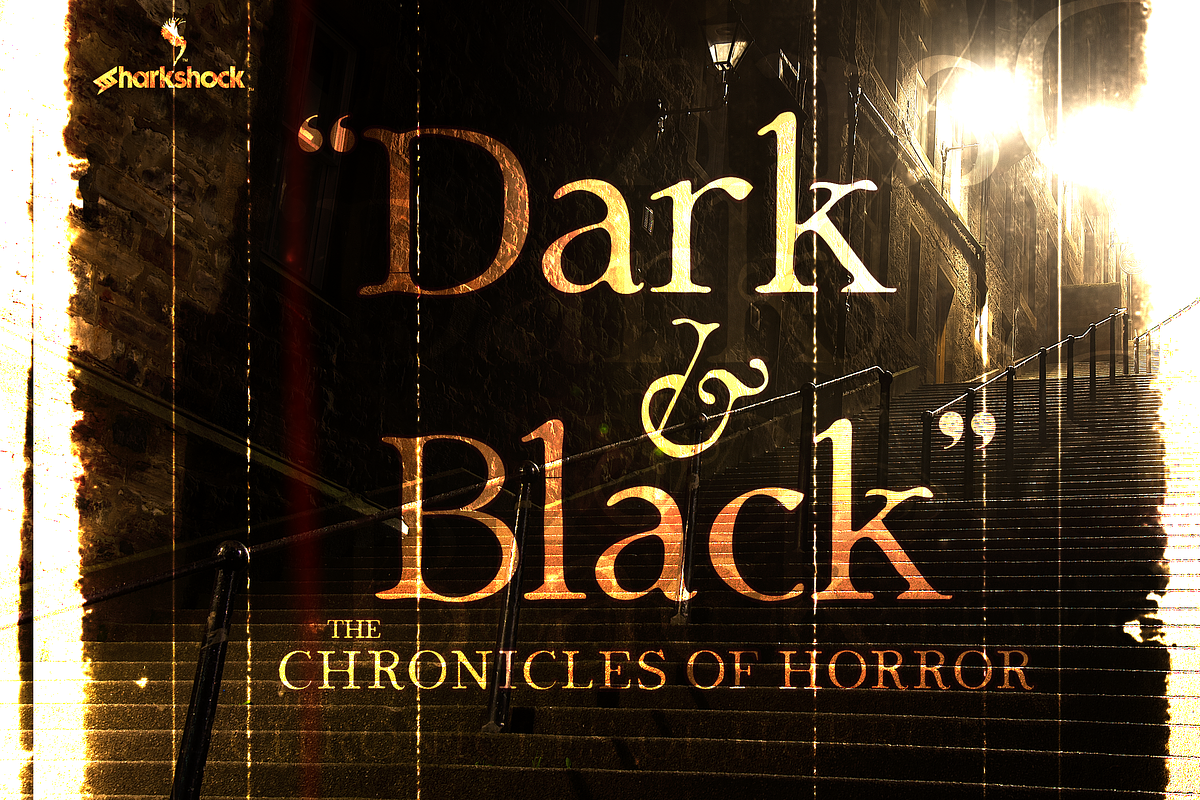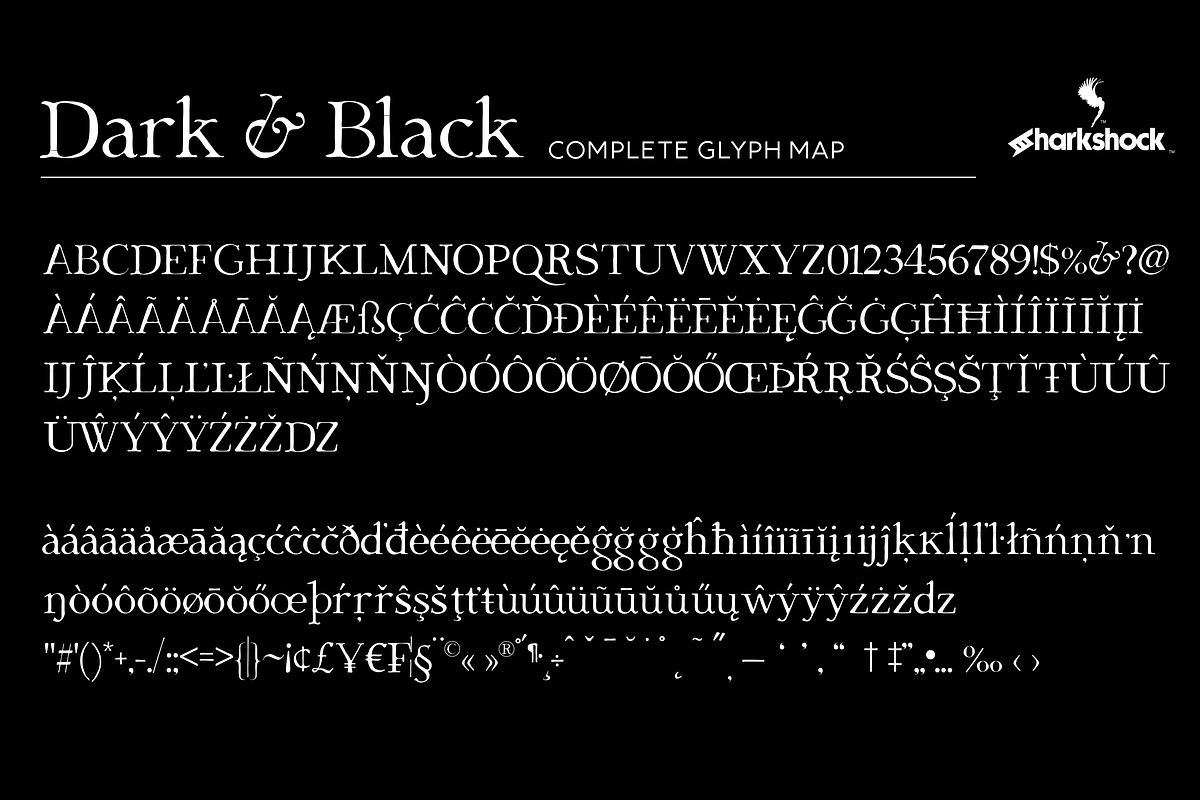
Dark & Black
Deep within the twisted fabric of terror comes a font so spine tingling it will chill you to the very core. Dark & Black is a titling serif modeled after classic Roman letters with subtle levels of distress. At small sizes or from far away it appears normal but the closer you get the more you’ll wish you kept your distance. Basic Latin, Extended Latin, numbers, punctuation, and kerning are included. Use it for a book cover, horror movie poster, or Halloween decorations.